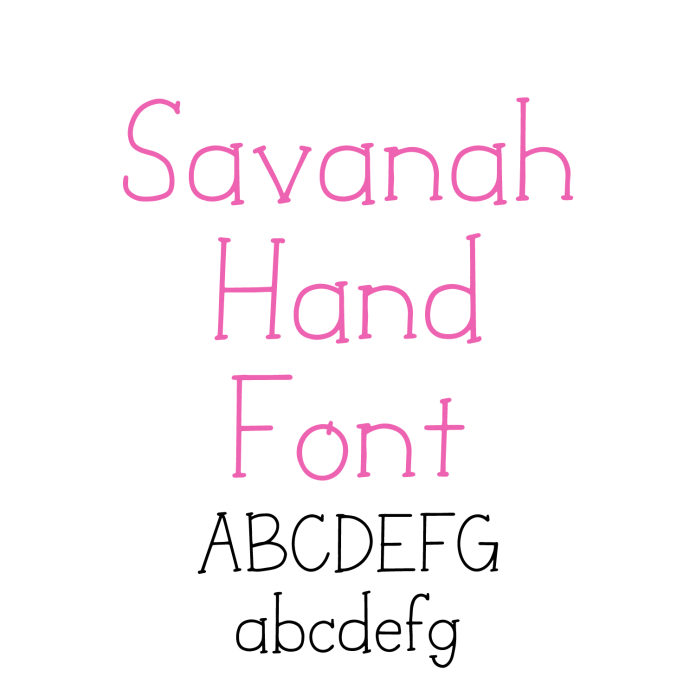
Meet Savanah Hand Font – a friendly handwritten serif font designed with the classroom in mind! With clear letterforms and subtle serifs, this font is perfect for educational worksheets, classroom labels, bulletin boards, name tags, posters, and school projects. The easy-to-read style supports early learners while adding a warm, handwritten touch to your teaching materials. Great for teachers, homeschoolers, and creative educators, Savanah Hand cuts smoothly on vinyl, HTV, paper, and more. Add a classic yet approachable look to your educational crafts and displays. Download now and make learning environments more engaging with Savanah Hand Font!